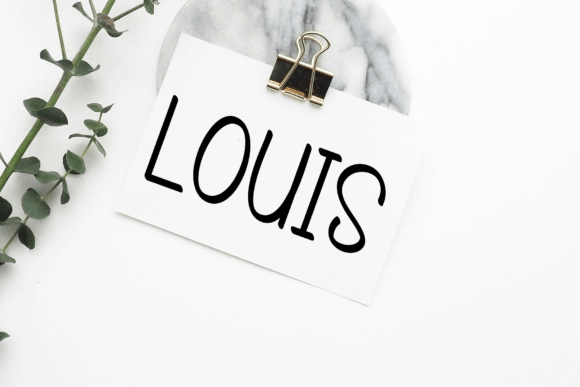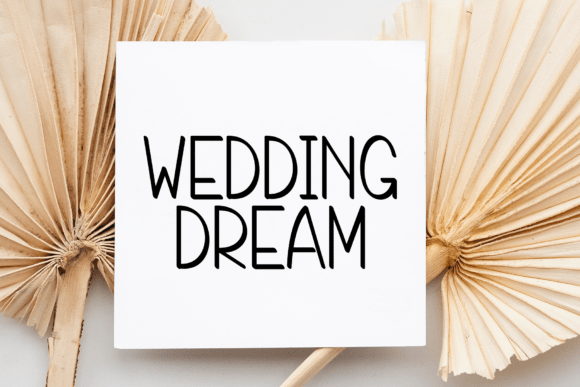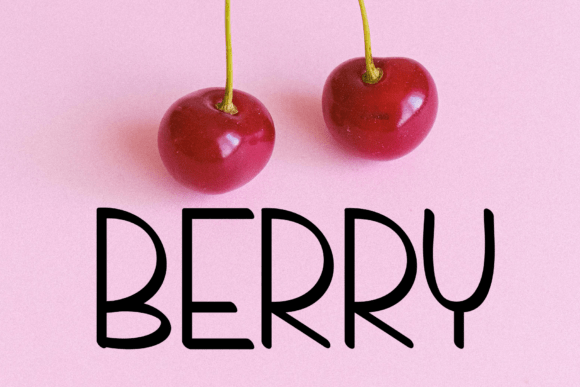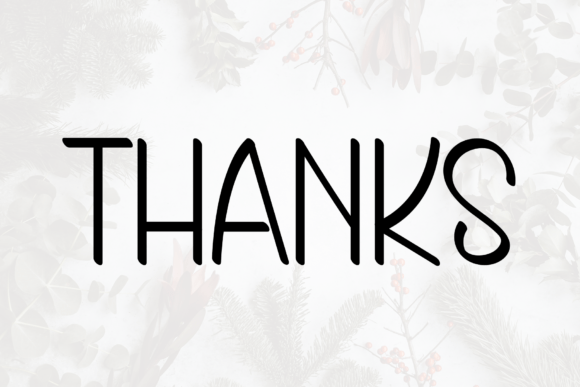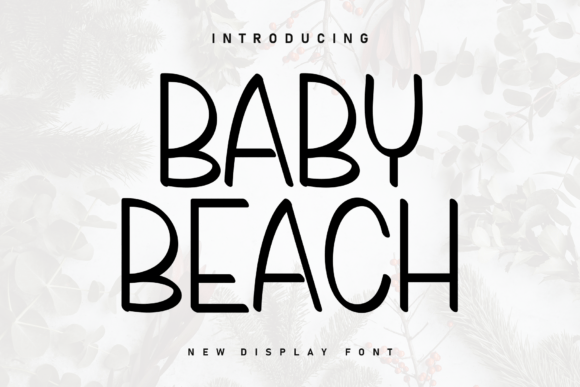
Baby Beach Font: The Perfect Handwritten Font for Your Design Projects
Are you looking for a font that exudes a sense of warmth and perfection? Look no further than Baby Beach Font! This charming handwritten font is filled with a sense of heartfelt perfection, making it perfect for a variety of design projects. In this article, we’ll dive into the features and benefits of Baby Beach Font, and explore how you can use it to elevate your designs.
What is Baby Beach Font?
Baby Beach Font is a beautiful handwritten font that is designed to evoke a relaxed atmosphere. Its smooth strokes and organic lines give it a natural and effortless feel, making it perfect for designs that require a personal touch. The font is crafted with love and care, and its unique characteristics make it stand out from other fonts in its category.
Key Features of Baby Beach Font
- Smooth Strokes: Baby Beach Font features smooth strokes that give it a fluid and natural look.
- Organic Lines: The font’s organic lines add a touch of warmth and personality to your designs.
- Handwritten Style: Baby Beach Font has a charming handwritten style that is perfect for designs that require a personal touch.
- Versatile: The font is versatile and can be used for a variety of design projects, including branding, invitations, and social media graphics.
Benefits of Using Baby Beach Font
So, why should you choose Baby Beach Font for your design projects? Here are just a few benefits of using this amazing font:
- Emotional Connection: Baby Beach Font helps create an emotional connection with your audience, making your designs more relatable and engaging.
- Unique Look: The font’s unique characteristics give your designs a distinctive look that sets them apart from others.
- High-Quality: The font is high-quality and comes with a range of features, including multilingual support and adjustable font sizes.
Design Projects Perfect for Baby Beach Font
Baby Beach Font is perfect for a variety of design projects, including:
- Branding: Use Baby Beach Font to create a unique and memorable brand identity that stands out from the competition.
- Invitations: The font is perfect for creating beautiful and personalized invitations for weddings, birthday parties, and other special occasions.
- Social Media Graphics: Baby Beach Font can be used to create engaging social media graphics that grab attention and drive engagement.
- Stationery: Use the font to create beautiful stationery, including letterheads, business cards, and more.
Tips for Using Baby Beach Font
Here are a few tips for using Baby Beach Font in your design projects:
- Pair with Other Fonts: Experiment with pairing Baby Beach Font with other fonts to create a unique and visually appealing combination.
- Adjust Font Size: Adjust the font size to create visual hierarchy and emphasize important information.
- Use Colors: Use colors that complement the font and add visual interest to your designs.
- Experiment with Styles: Experiment with different styles, such as bold, italic, and underline, to add emphasis and create visual interest.
In conclusion, Baby Beach Font is a charming handwritten font that is perfect for designers and crafters looking for a unique and versatile font for their design projects. With its smooth strokes, organic lines, and handwritten style, this font is sure to evoke a relaxed atmosphere and create an emotional connection with your audience. Whether used for branding, invitations, or social media graphics, Baby Beach Font is a great choice for anyone looking to add a personal touch to their designs.